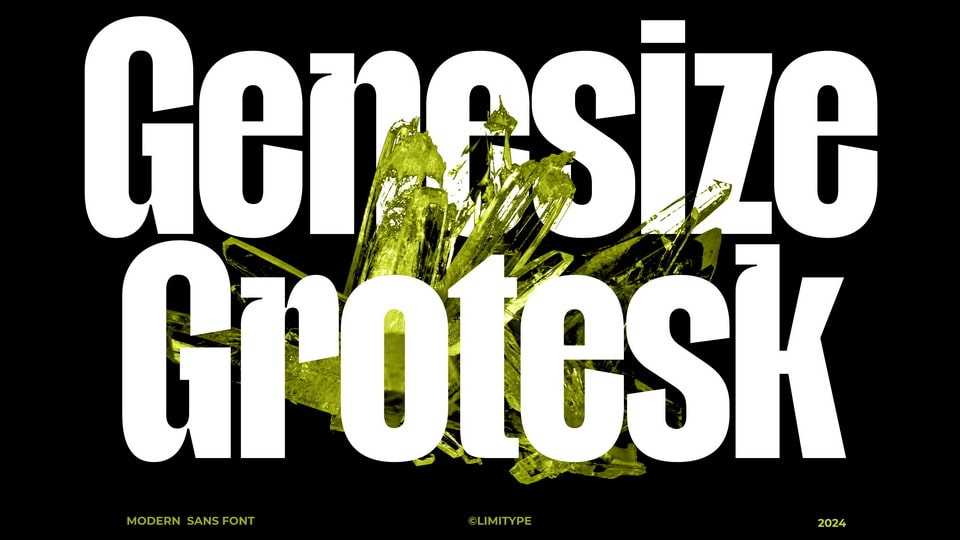
Download Genesize Grotesk font, a modern sans display typeface with several unique stems and joins, this font is suitable for display needs, headlines, banners etc.